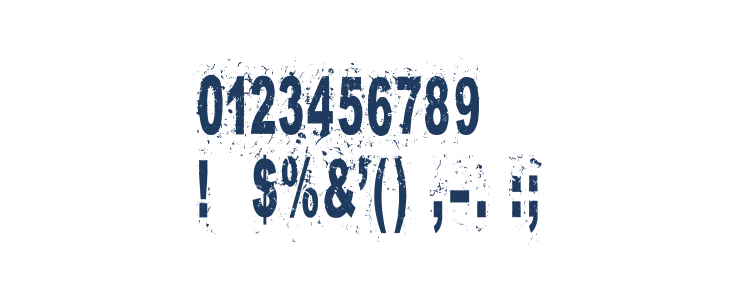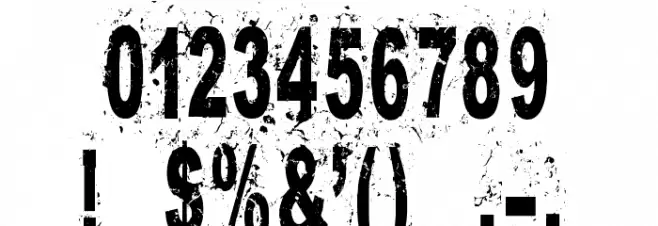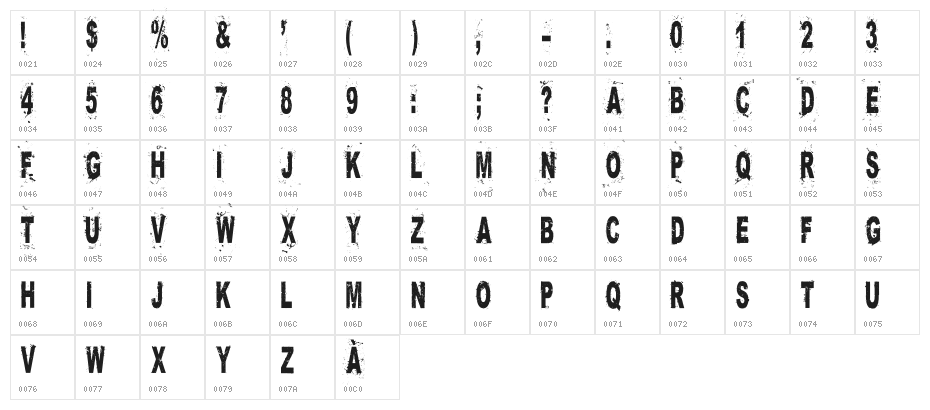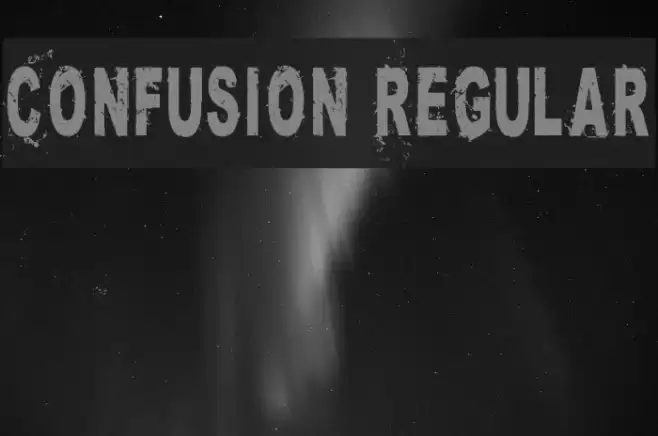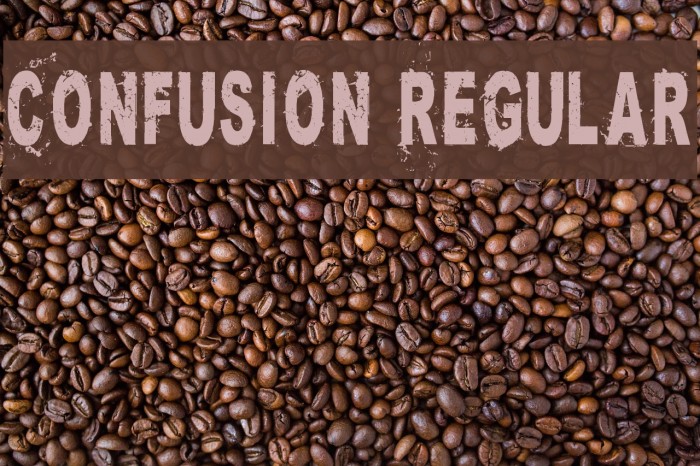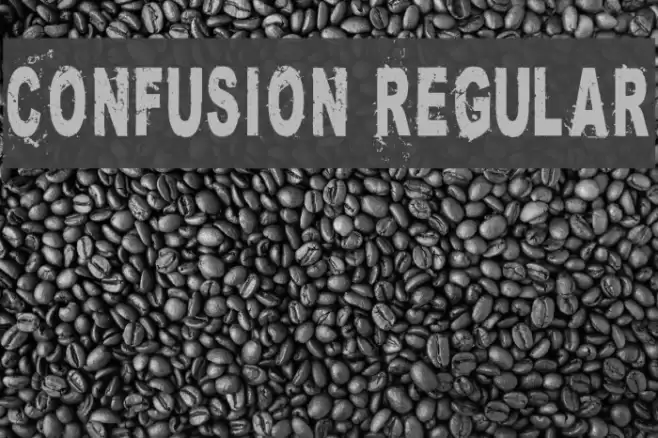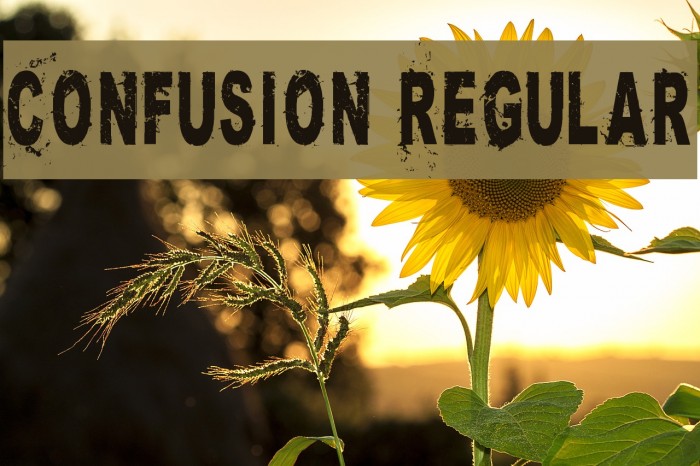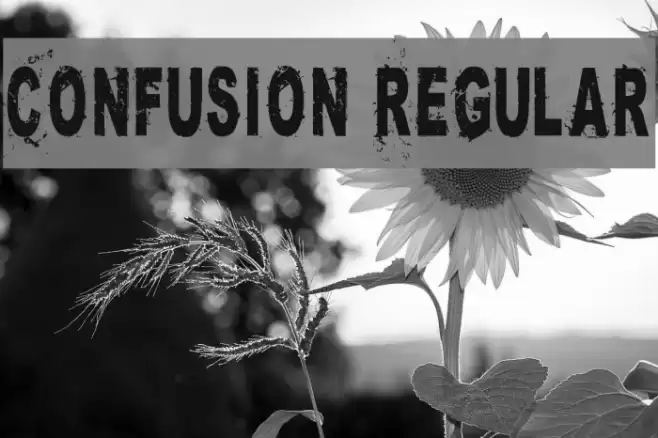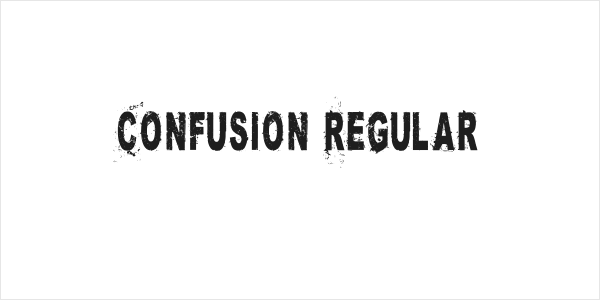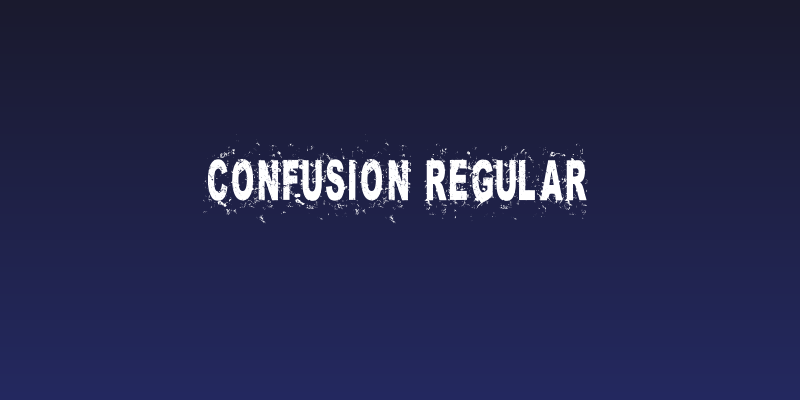
Confusion Regular Font
Confusion Regular Description
This font features a bold, distressed style with a grunge texture that gives it a rugged and worn appearance. The uppercase letters are prominent and impactful, making it suitable for designs that require a strong visual presence. The numbers and special characters maintain the same distressed aesthetic, ensuring consistency across all elements. The font's rough edges and irregularities contribute to its unique character, making it ideal for projects that aim to convey a sense of edginess or vintage appeal.
| Overall Style | Grunge, Vintage |
| Proposed Projects | Ideal for posters, album covers, branding for edgy products, or any design requiring a vintage or grunge aesthetic. |